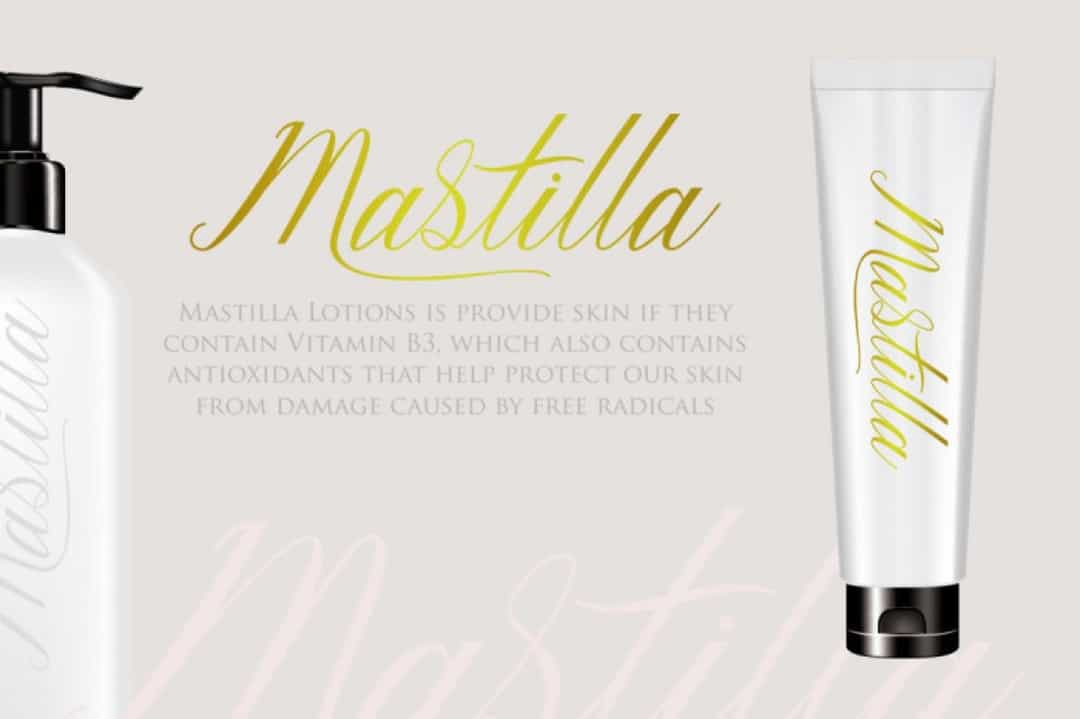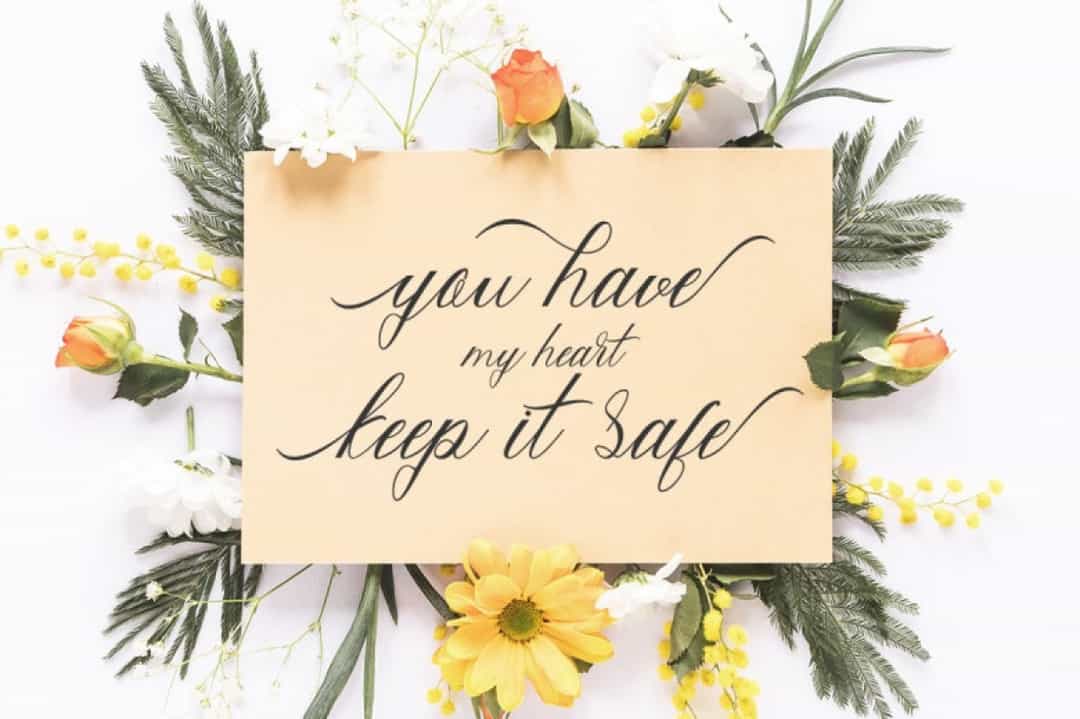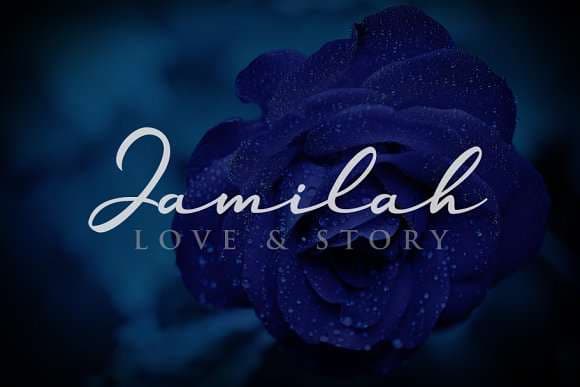
Feraldine Regular is an elegant script calligraphy font featuring simple yet beautiful swashes, perfect for logos packaging for products wedding invitations branding headlines signs labels signature book covers posters quotes and much more.